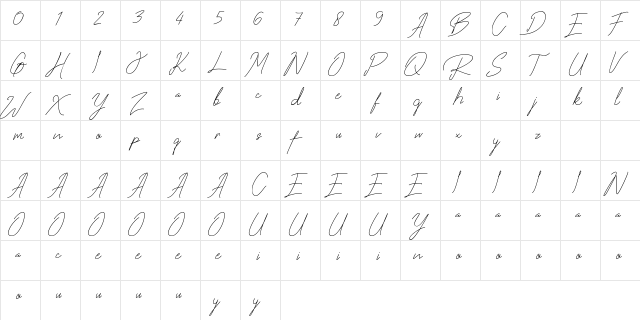
Roger Heart Regular
Design Context for Roger Heart Typeface
Roger Heart is a composed and adaptable typeface that performs quietly and consistently across a wide range of design contexts.